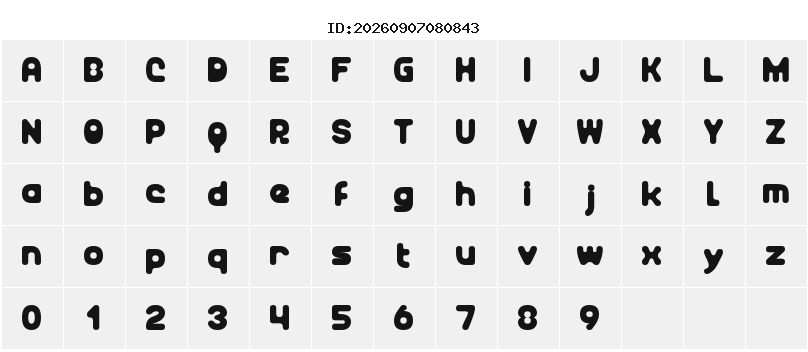
• Font Name: Unocide
• Font Style: Pills
• Full Font Name: Unocide
• Designer: *dibujado*
• Description: Unocide is a *dibujado* font created with the Font Creator Program from High-Logic.com
About Unocide.ttf
Unocide.ttf is a modern, elegant sans-serif font designed for ultimate readability and visual harmony. Perfect for branding, headlines, web design, and print materials.